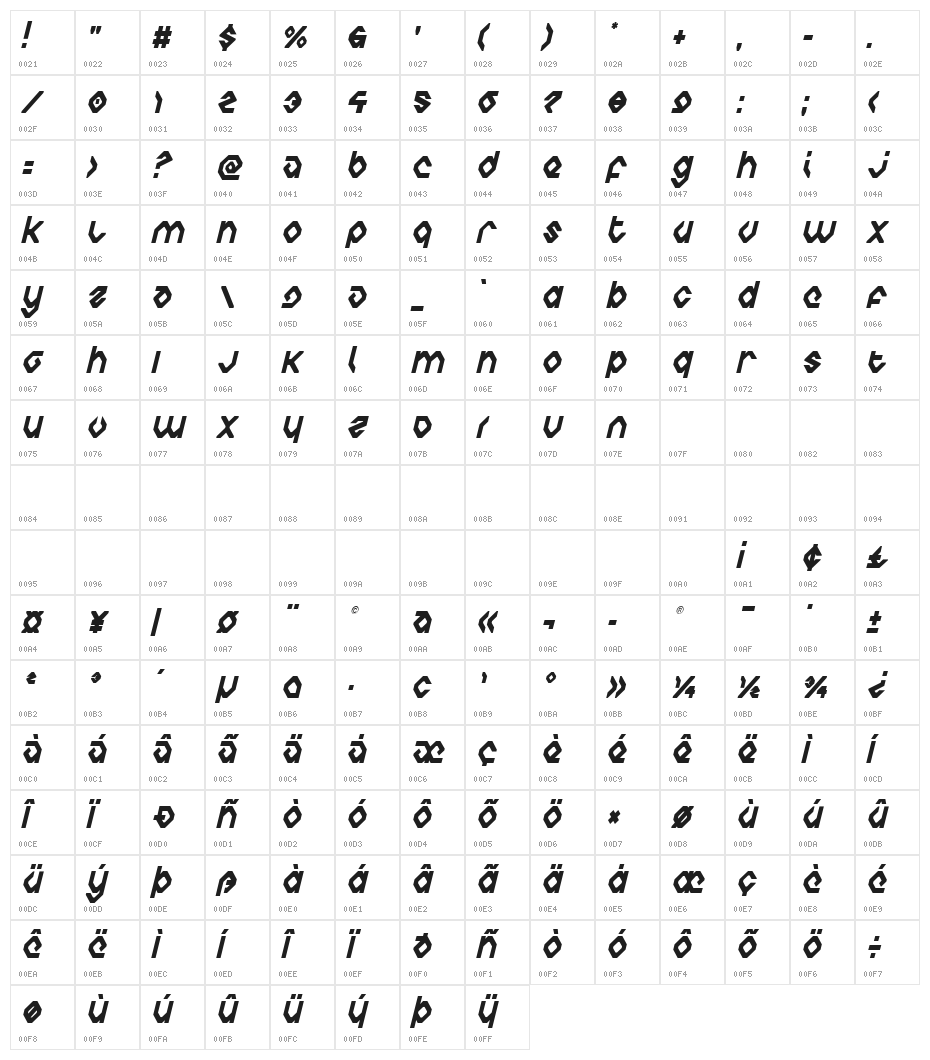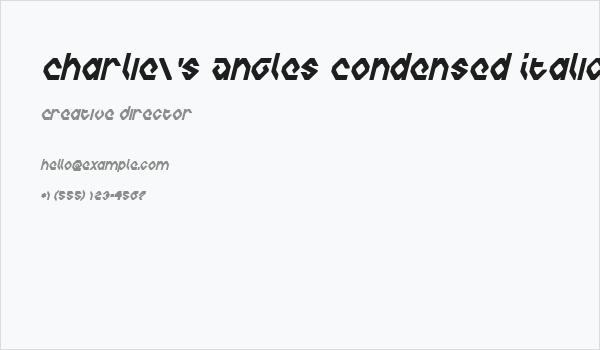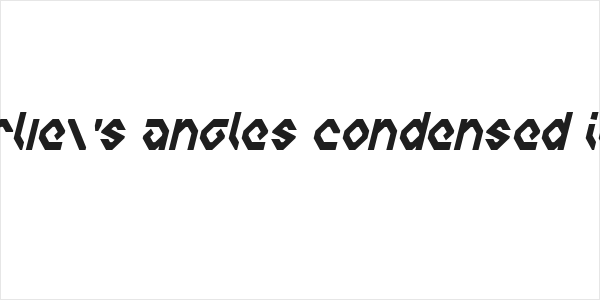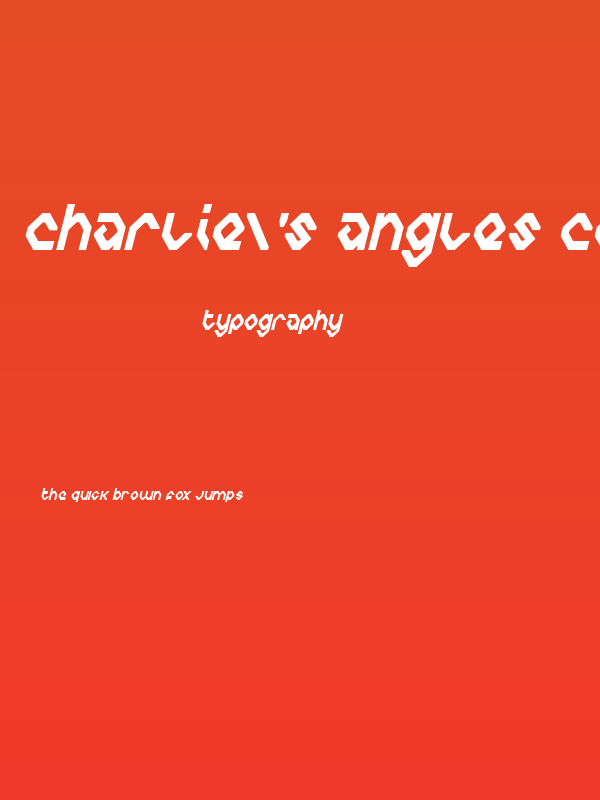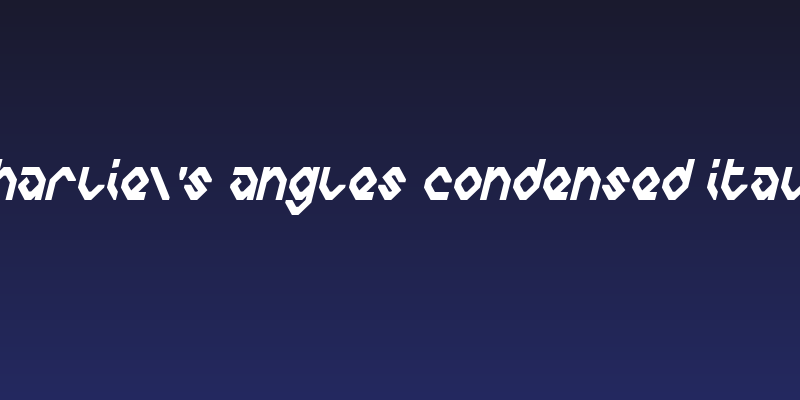
Charlie's Angles Condensed Italic Font
Charlie's Angles Condensed Italic Description
This font features a bold, angular design with a condensed and italicized style. Each character is crafted with sharp, geometric lines that create a dynamic and edgy appearance. The uppercase and lowercase letters maintain a consistent slant, enhancing the italic effect. The numbers and special characters follow the same angular theme, ensuring uniformity across the font. The overall look is modern and striking, making it suitable for projects that require a bold statement. The condensed nature of the font allows for efficient use of space, while the italicization adds a sense of movement and urgency.
| Proposed Projects | Ideal for branding, posters, headlines, and any design requiring a bold, modern aesthetic. |